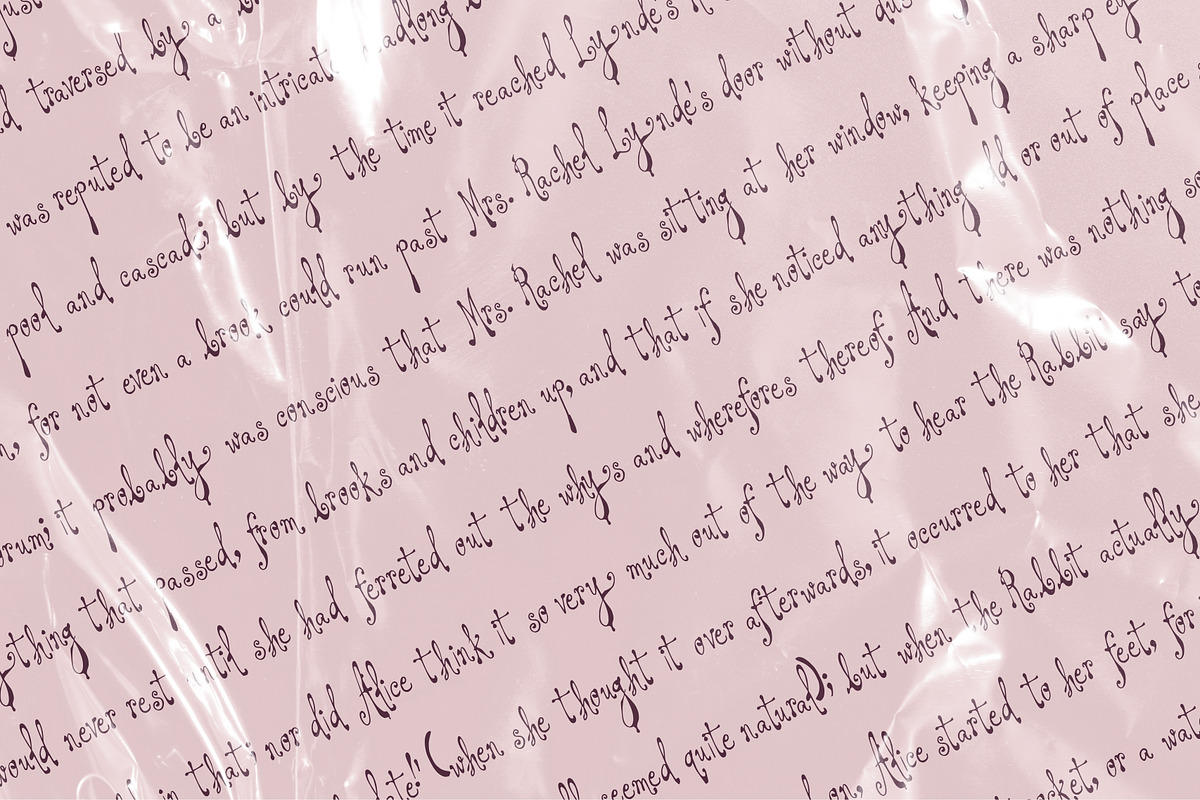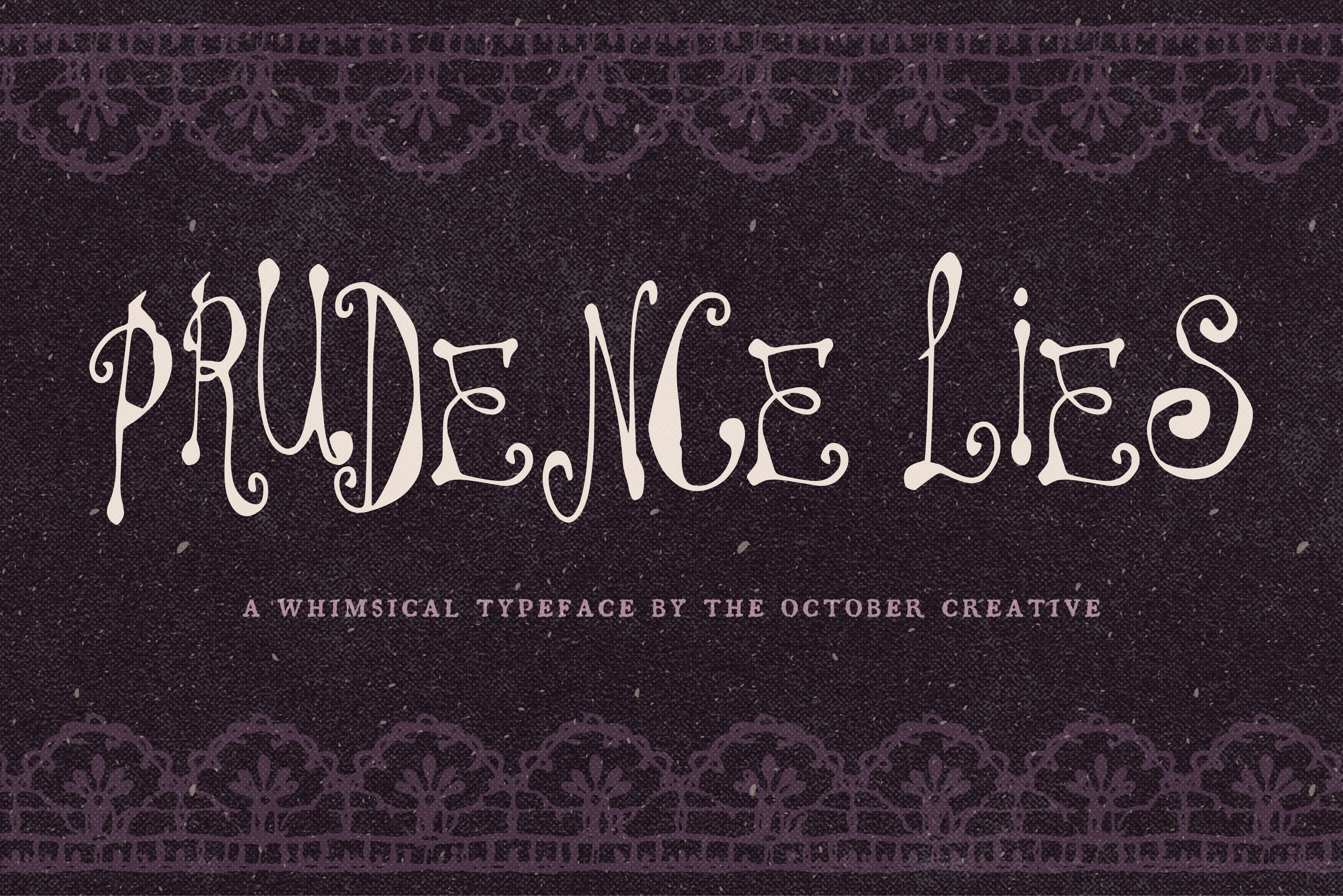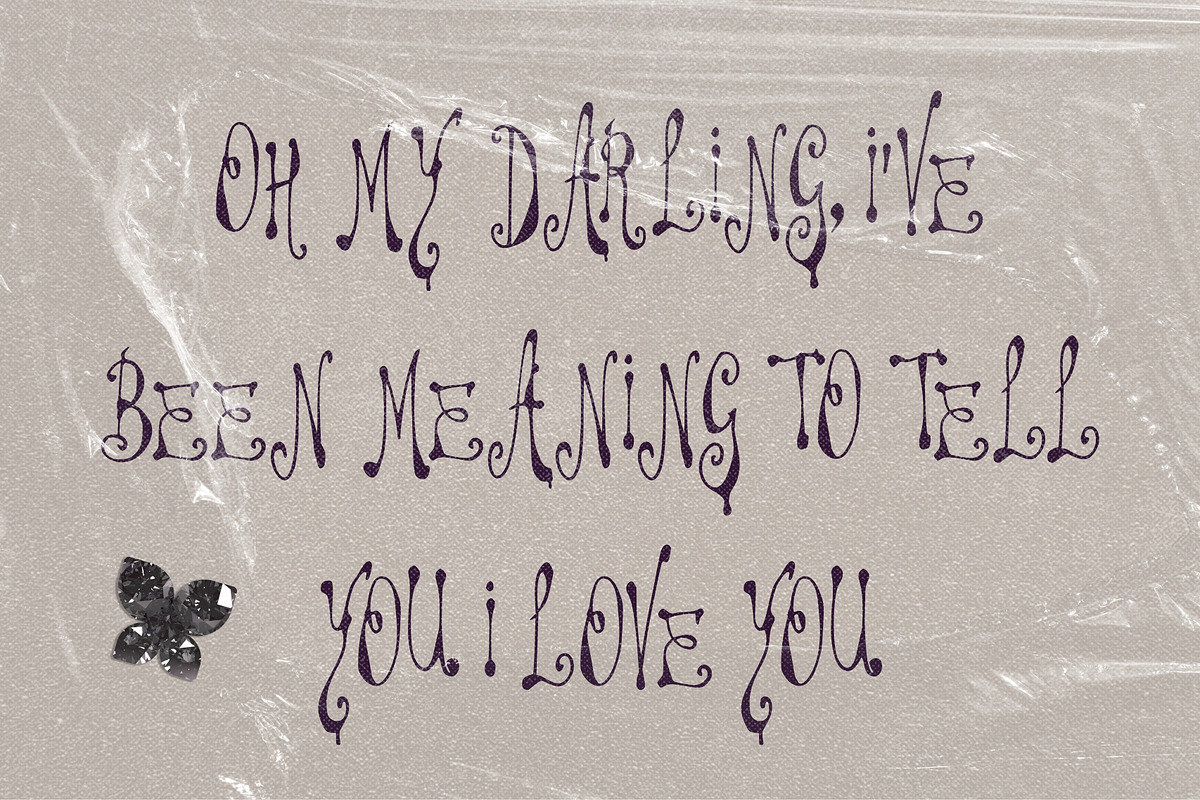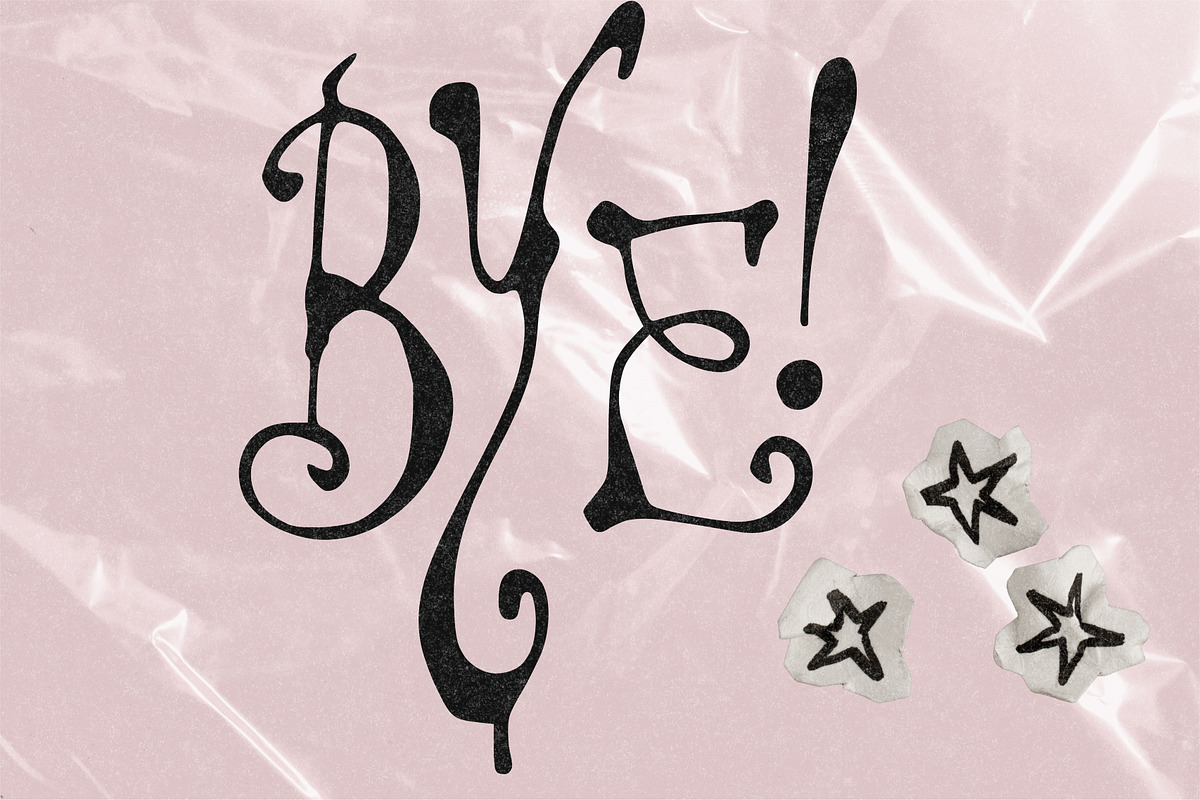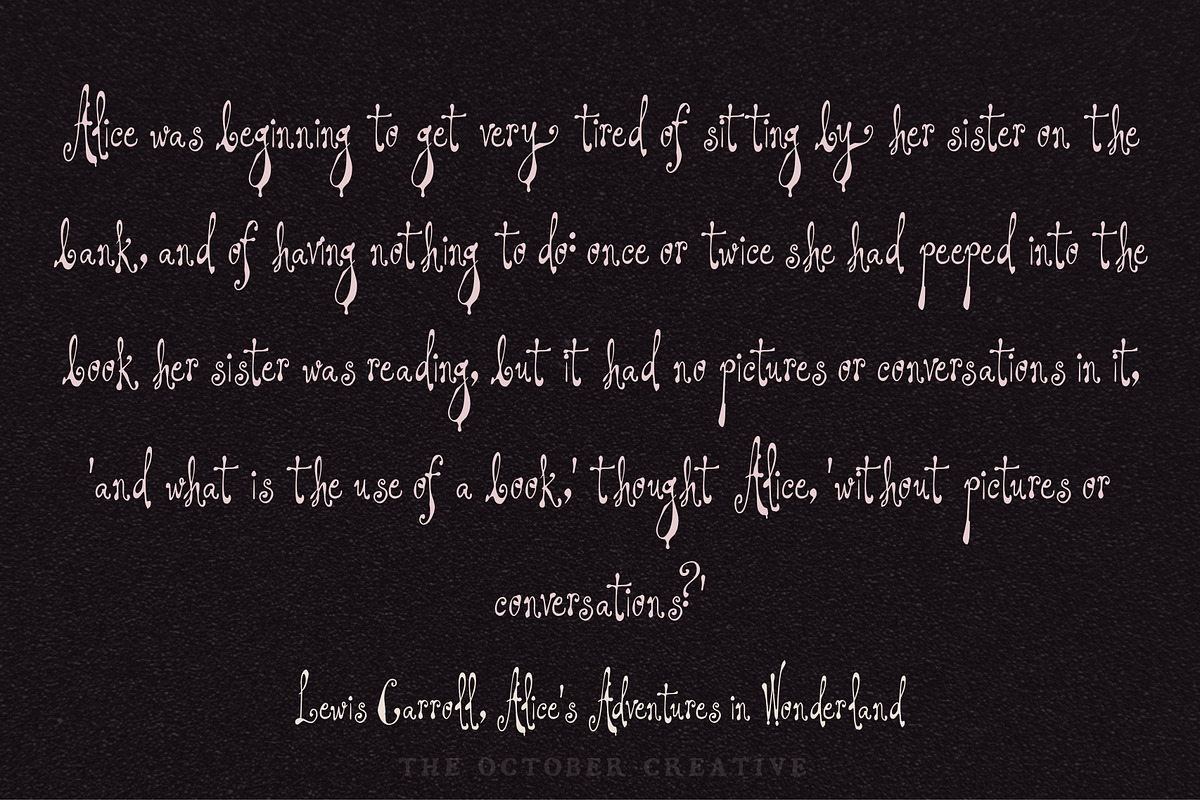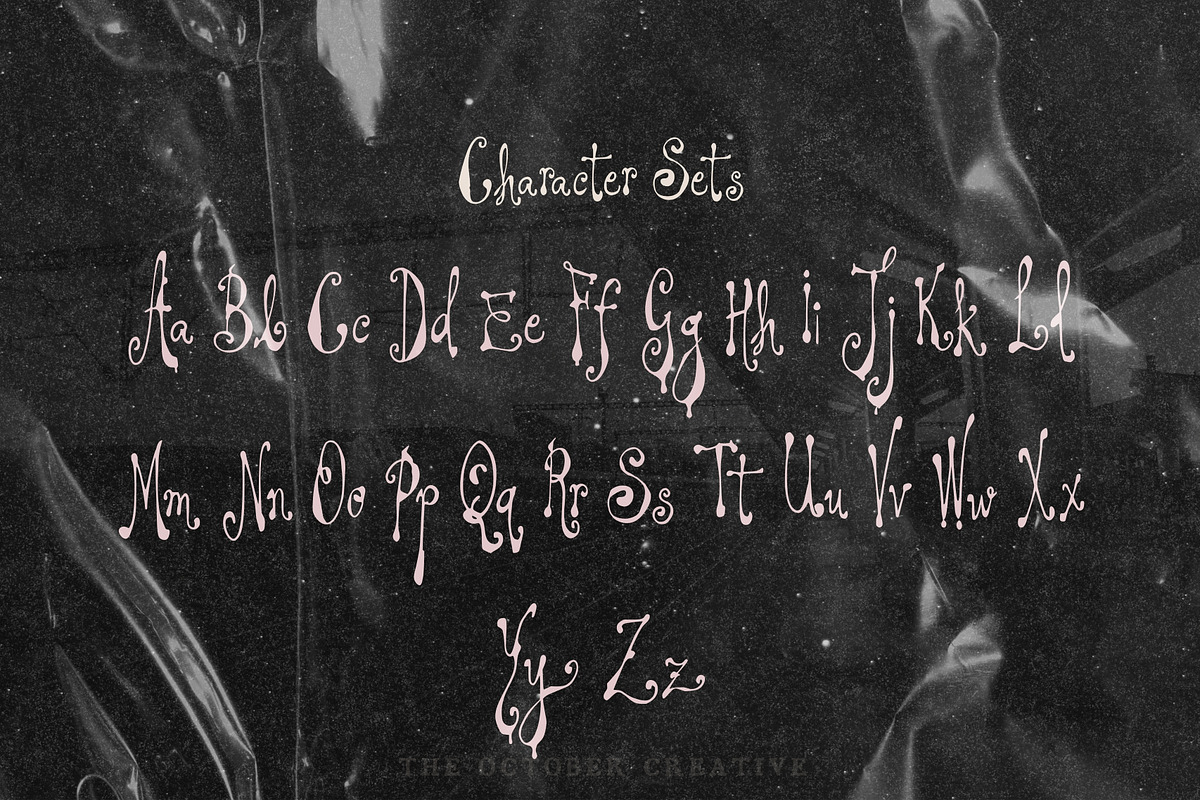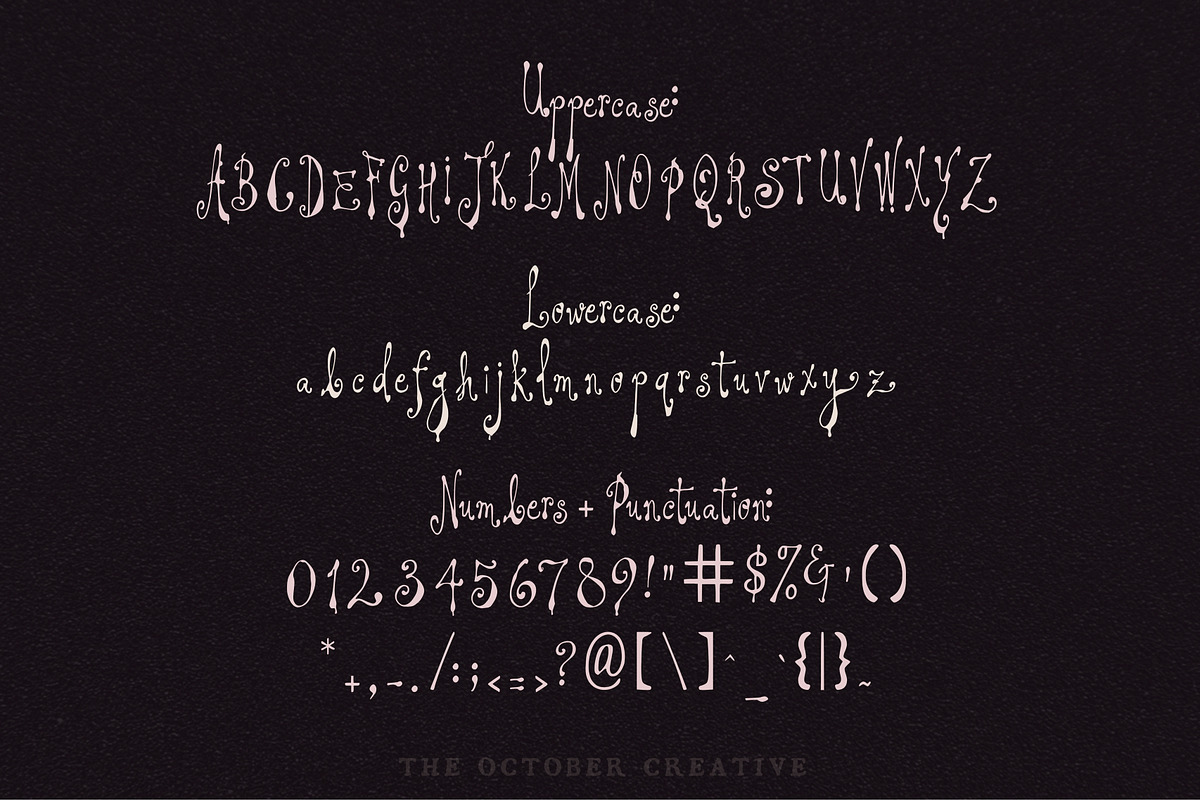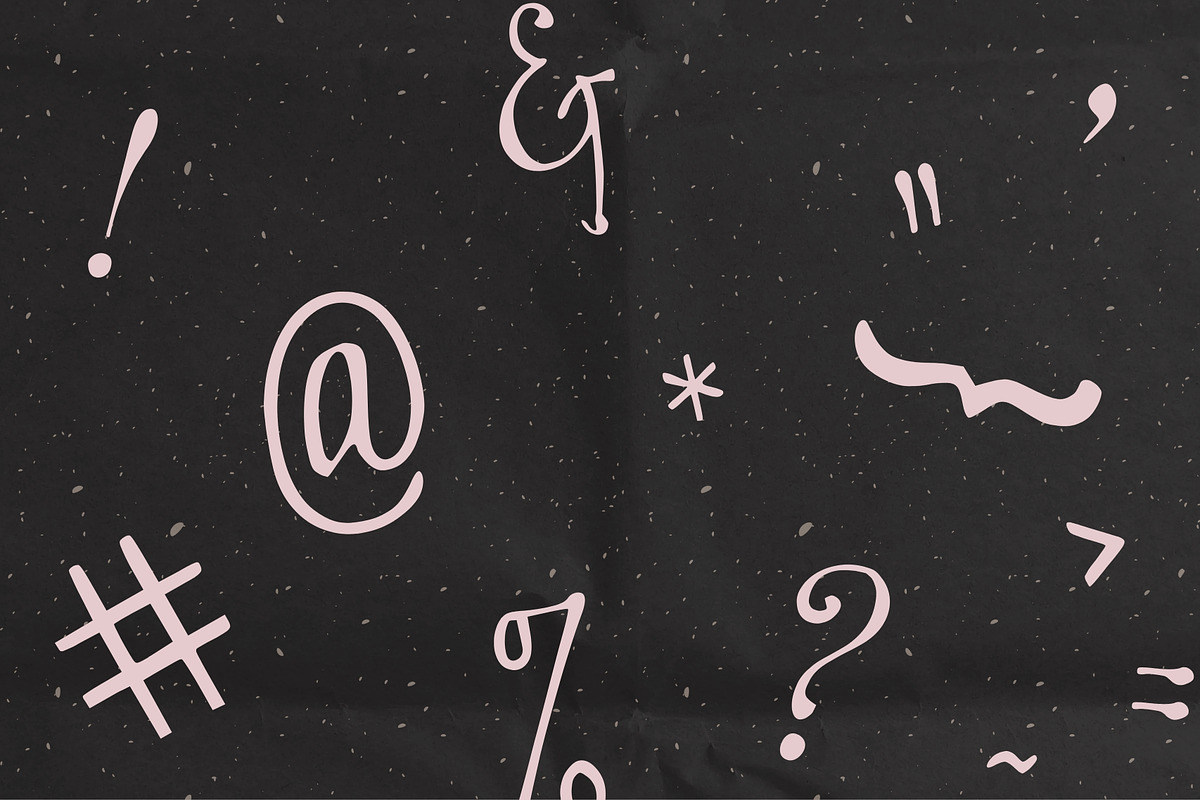
Prudence Lies Spidery Display Font
Prudence Lies is a spidery display font with very thin letters, long trailing tails, and a narrow slant. It fits journal pages, planner spreads, diary prints, and zines.
CHARACTER SET
Uppercase A to Z, lowercase a to z, numerals 0 to 9, and every standard keyboard punctuation mark and symbol: ! " # $ % & ' ( ) * + , - . / : ; < = > ? @ [ \ ] ^ _ ` { | } \~
Curly quotes and apostrophes (‘ ’ “ ”), en and em dashes, an ellipsis, and a bullet.
Accented letters: À Á Â Ã Ä Å Ç È É Ê Ë Ì Í Î Ï Ñ Ò Ó Ô Õ Ö Ù Ú Û Ü and their lowercase forms.
LANGUAGES SUPPORTED
English, plus the accented vowels, Ñ, and Ç used in names and everyday words in Spanish, French, Italian, Portuguese, German, and Dutch. Not included: ß, Æ, Ø, Œ, and the upside-down ¿ and ¡.
SPECIAL CHARACTERS